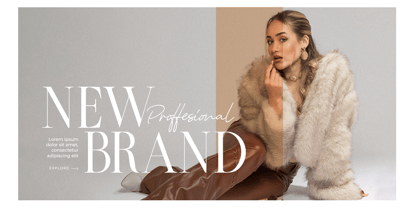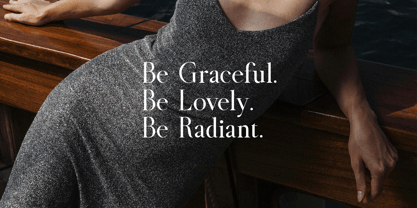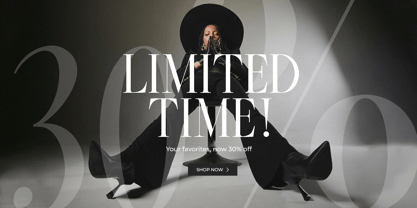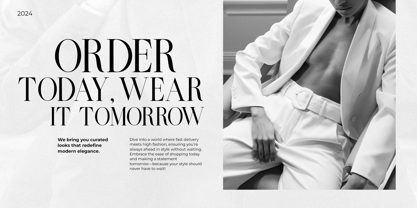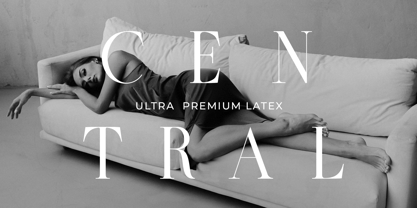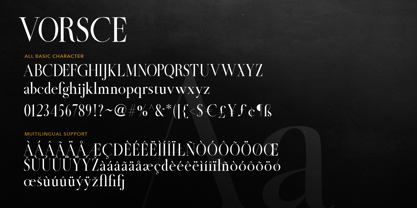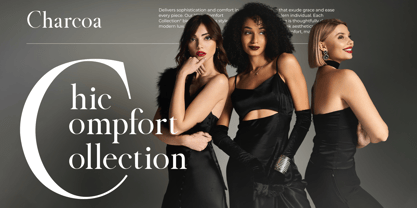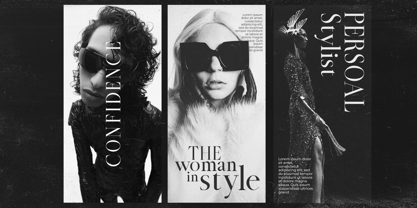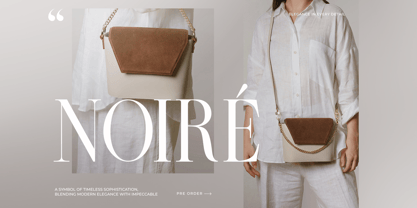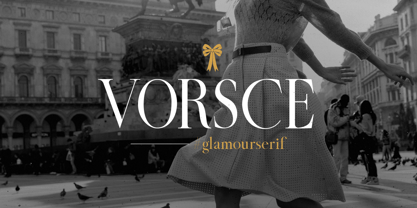
Vorsce
by Gholib Tammami
The Vorsce Font Family was designed by Gholib Tammami and published by Gholib Tammami. Vorsce contains 1 styles. More about this family
The timeless serif font that blends elegance and sophistication. With its refined lines and classic luxury appeal, Vorsce is perfect for high-end branding, editorial design, and premium invitations, bringing exclusivity and enduring beauty to any project.